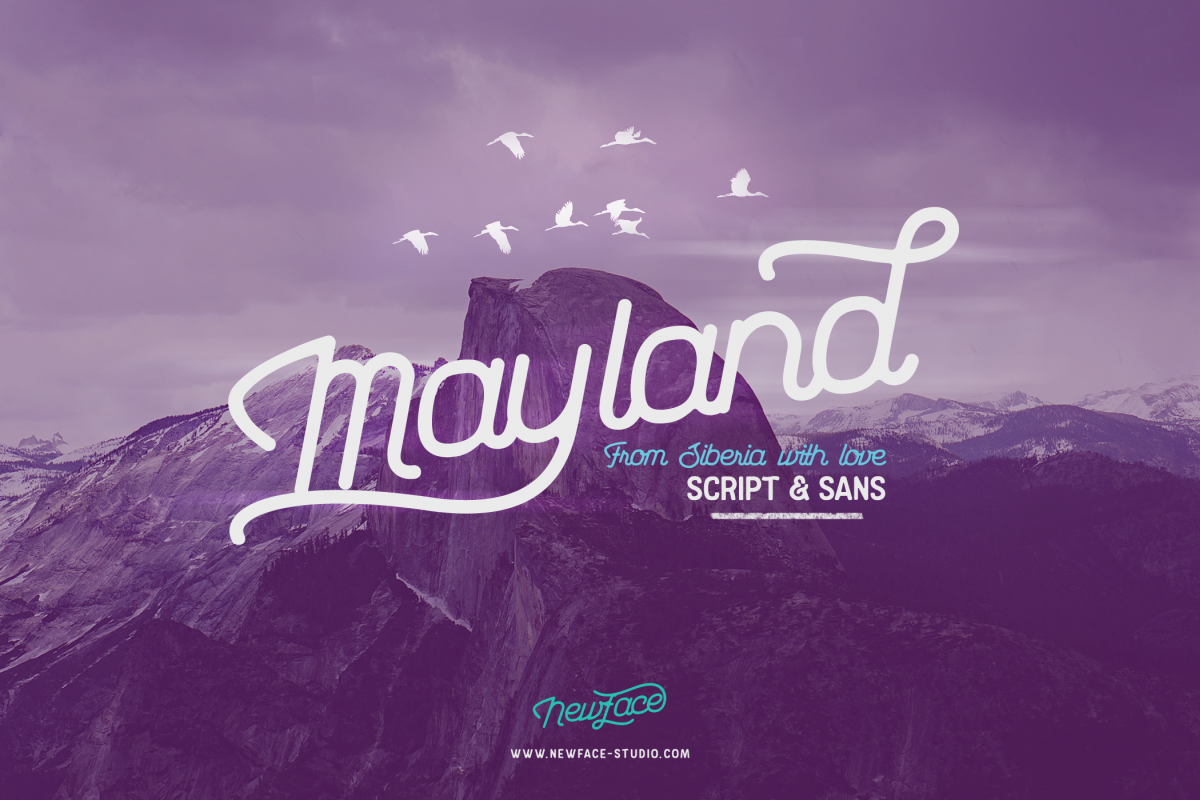
Mayland
Mayland is handmade script & sans typeface duo. Will be usefull for different types creative works. With nice rounded lines and corners for friendly graphics. Contains alternative gliphs. Latin alphabet + diacritic. Thank you )